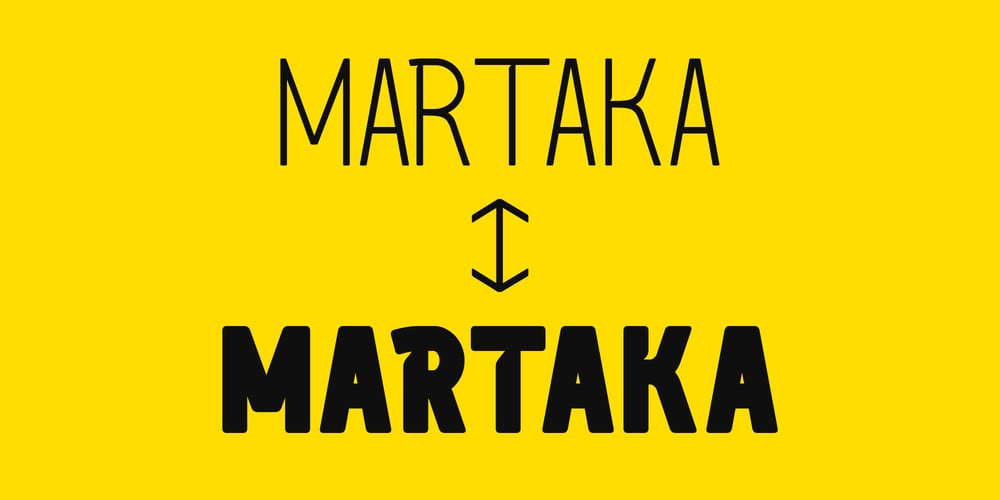
Martaka
Martaka font
Martaka Font Family was designed by Manzur Ghozaali and published by Ghozai Studio. Martaka contains 12 styles and family package options. Martaka offers a clean, modern, and minimalist look, making them easy to read on digital screens and in contemporary designs. Their simplicity and clarity make them a preferred choice for web design, signage, and branding, offering a more streamlined, straightforward appearance. Their neutral and unobtrusive style allows them to complement a variety of design elements without overpowering the message, making them ideal for both formal and informal applications.